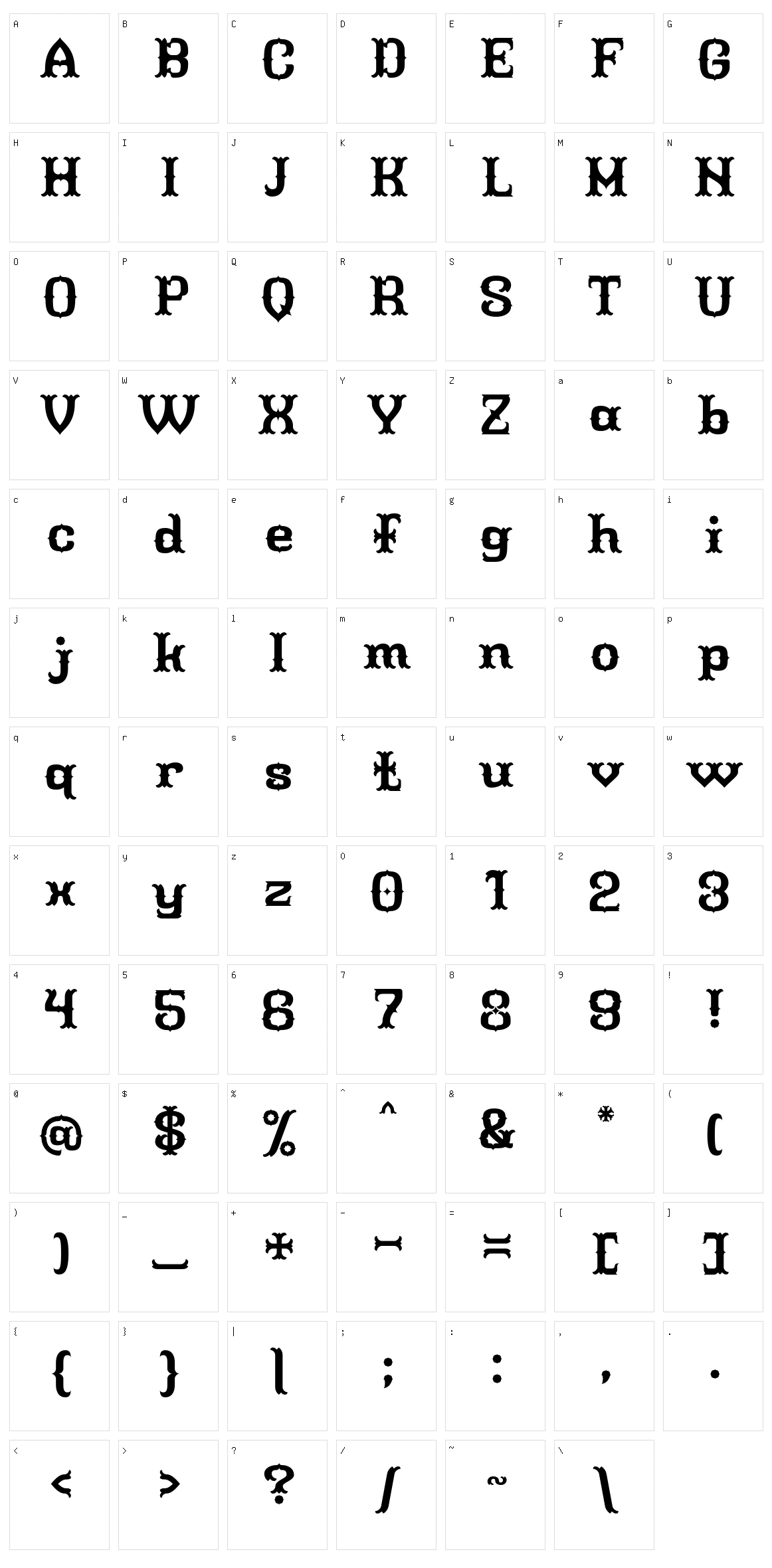
Tuscan Modular:
Tuscan Modular is a bold and decorative western style font.
Use it with layer effects such as the bevel/emboss filter for some interesting outcomes.